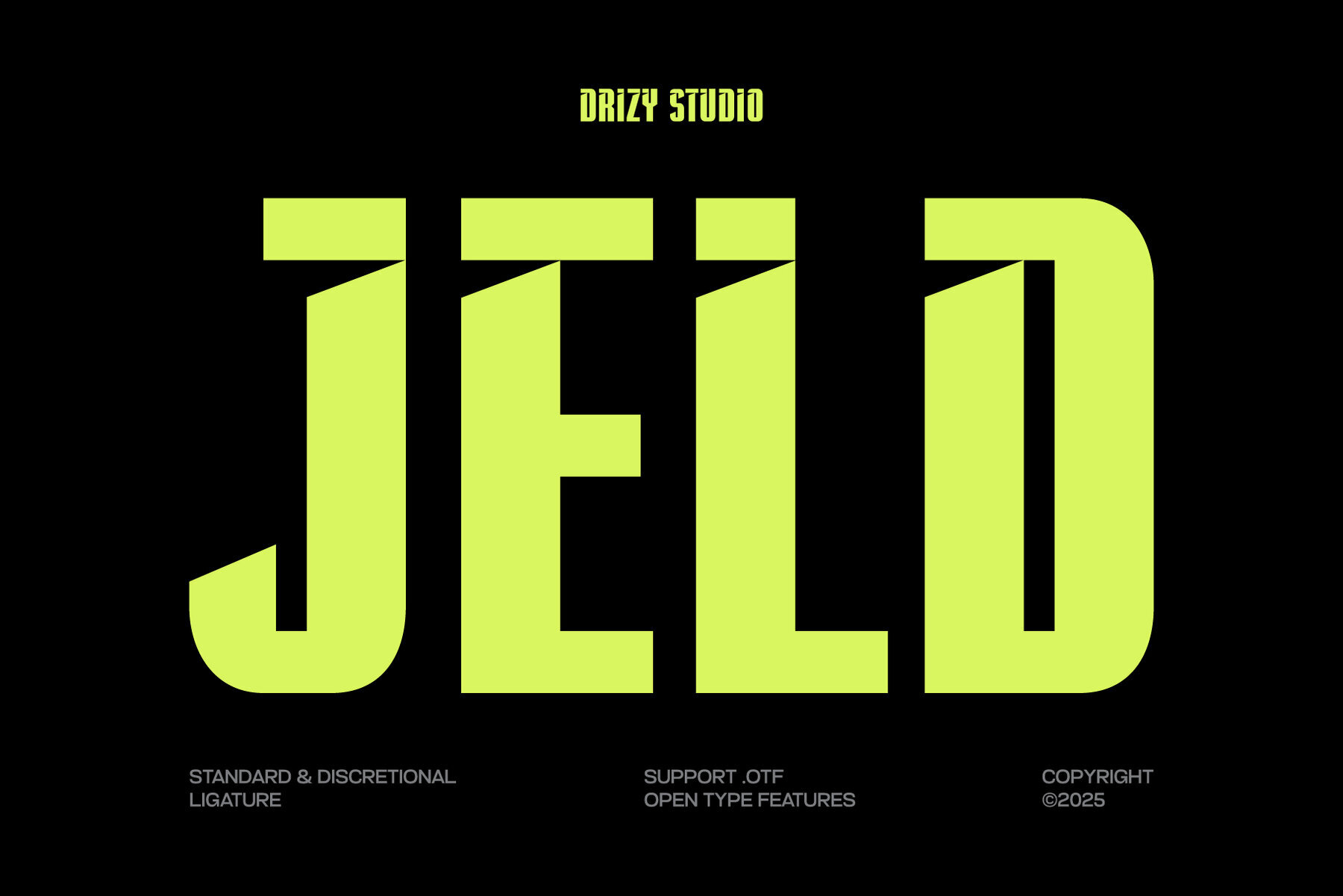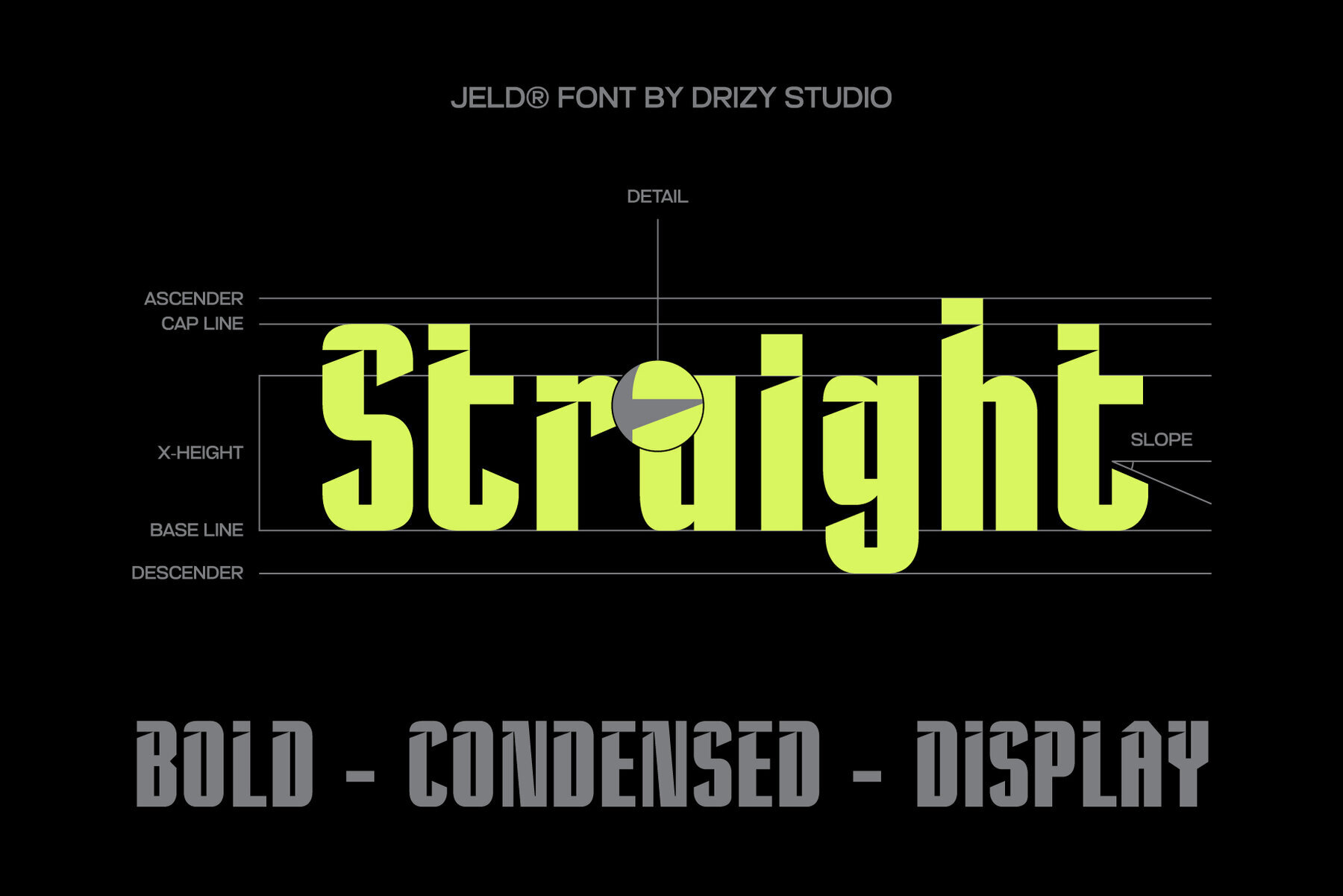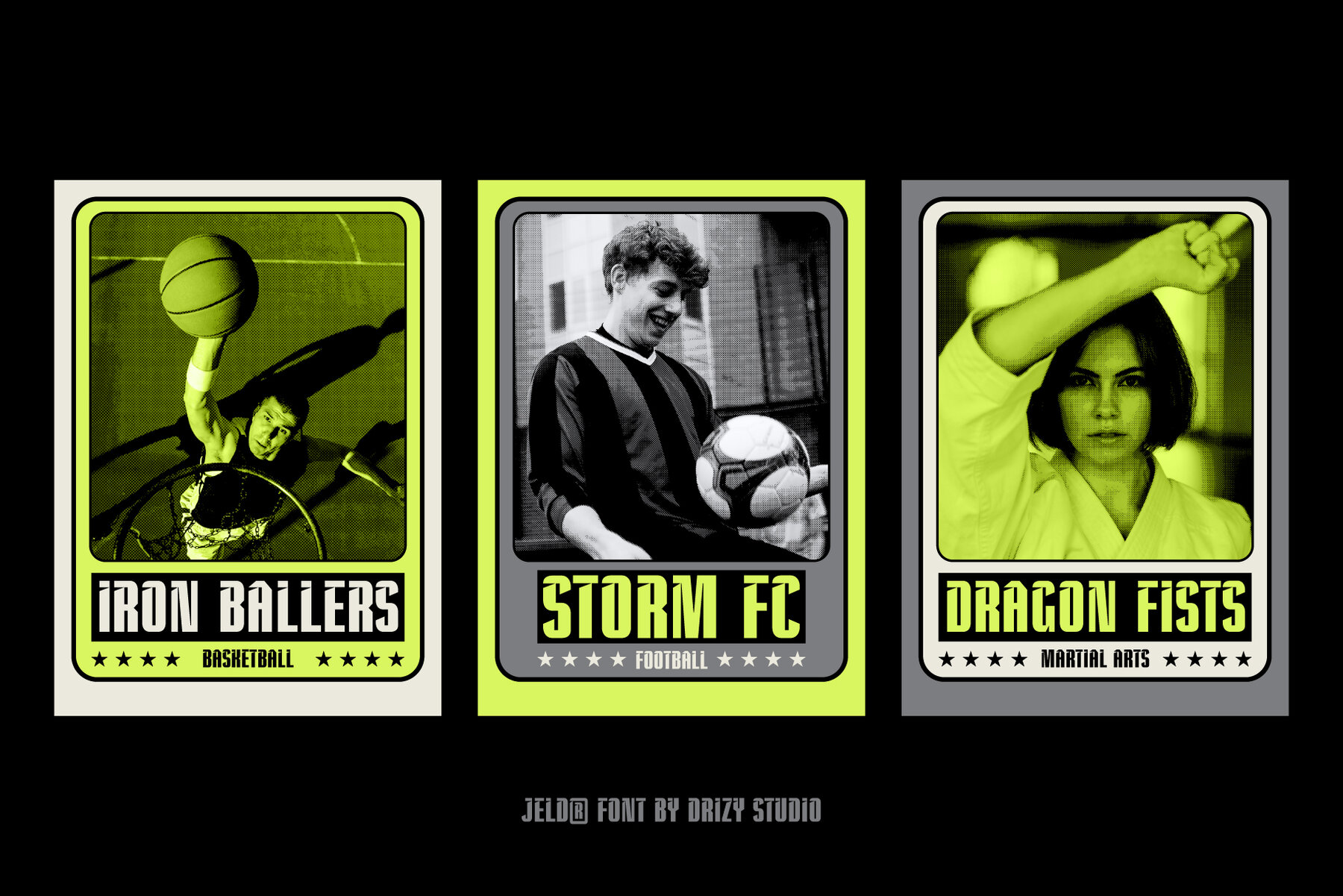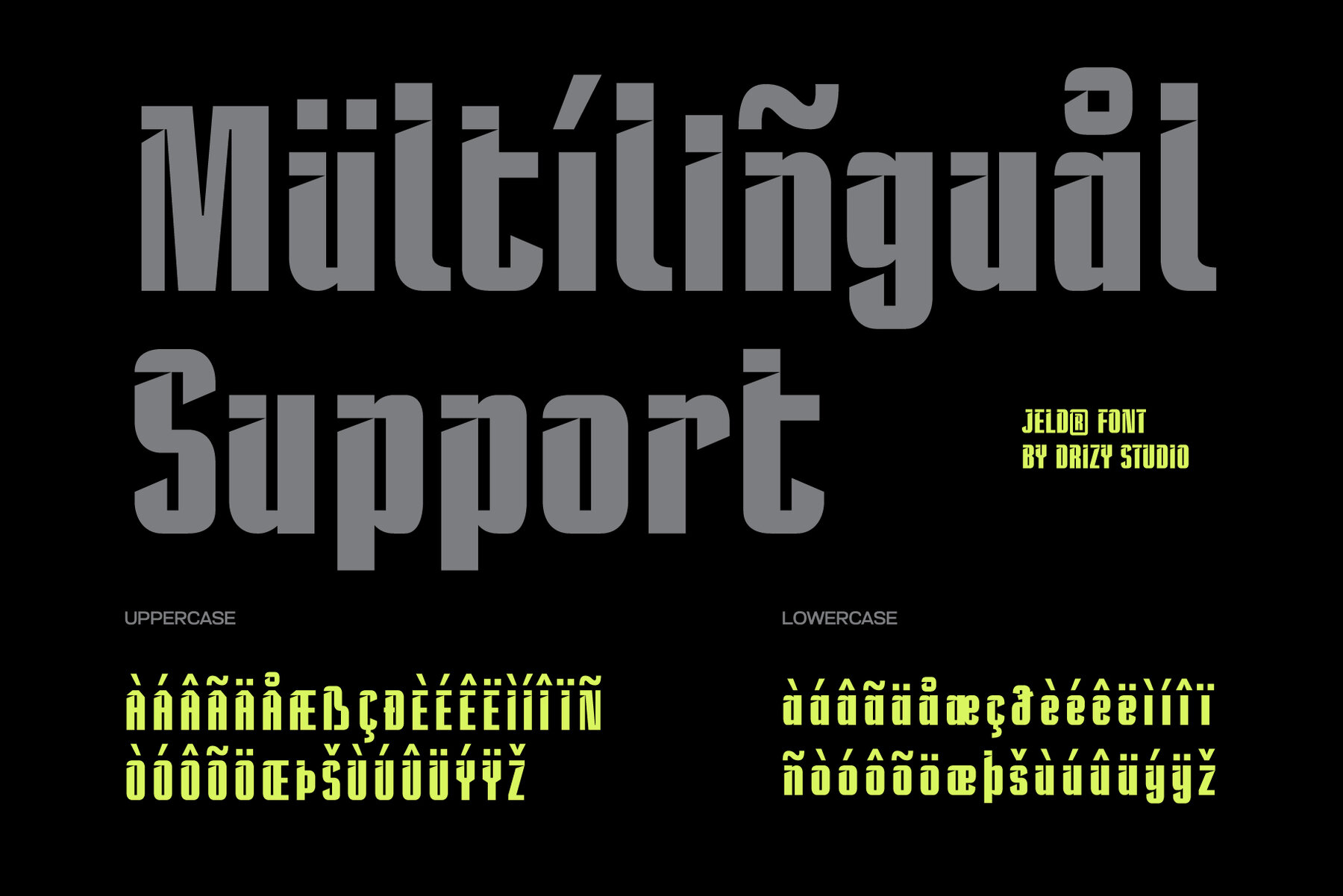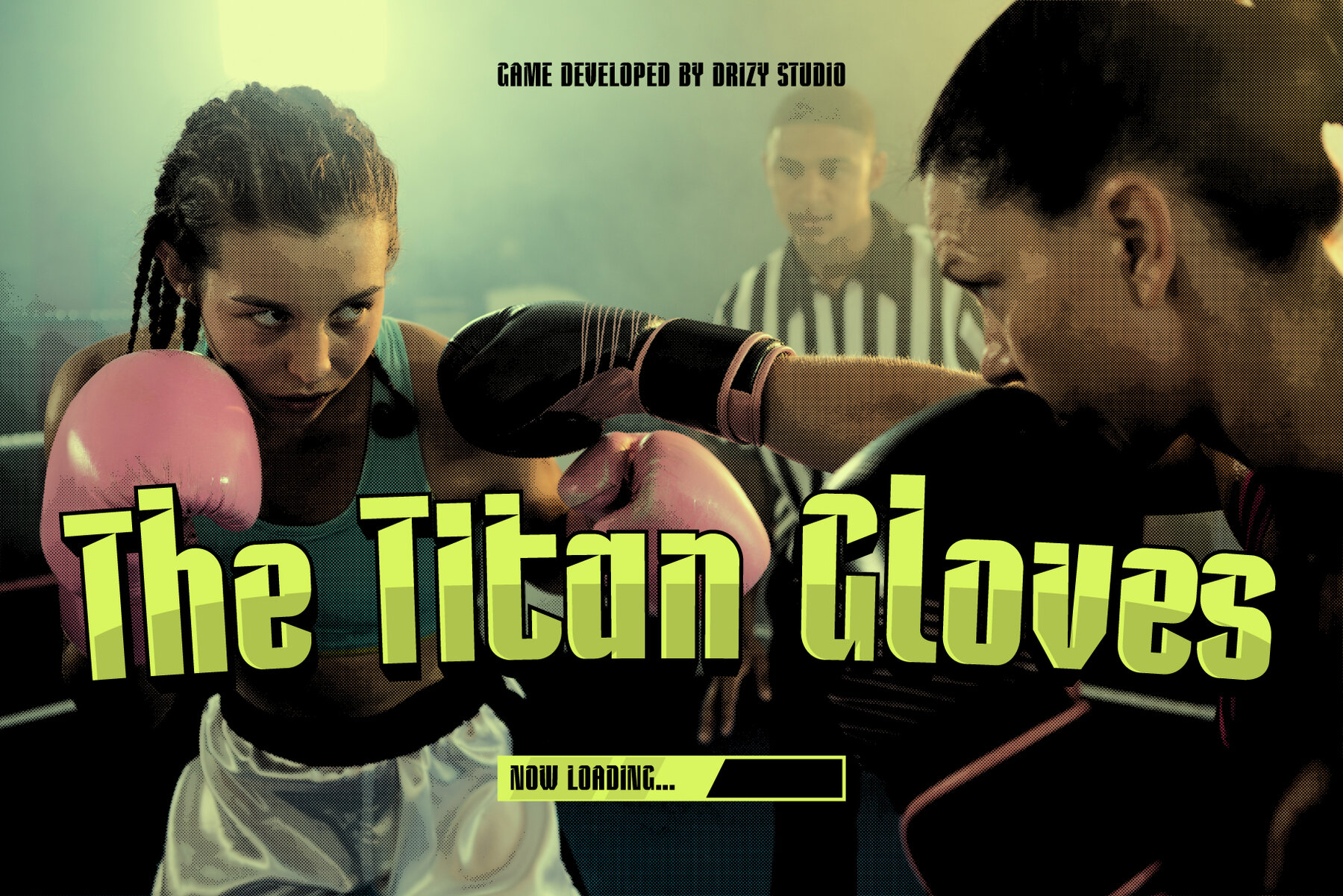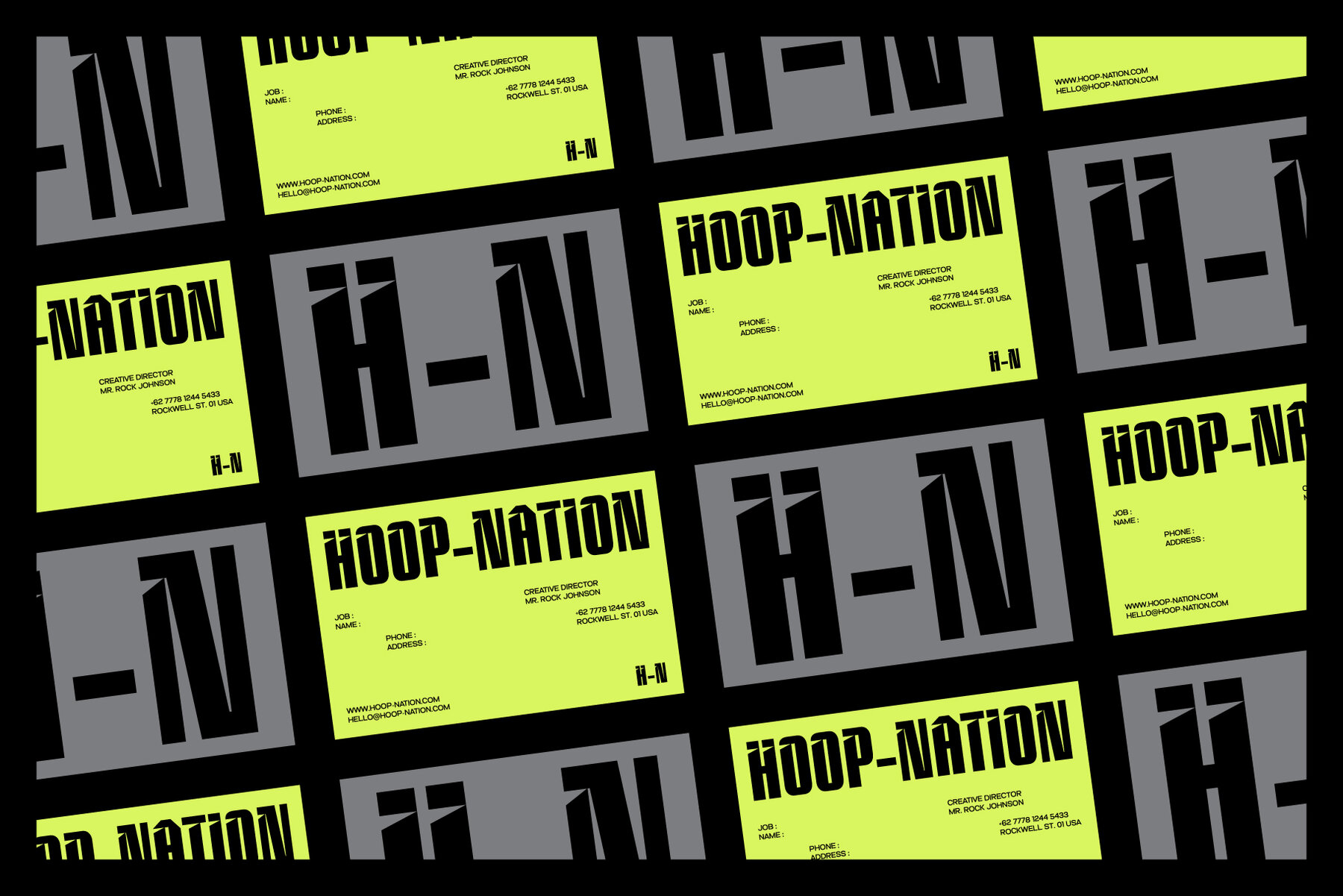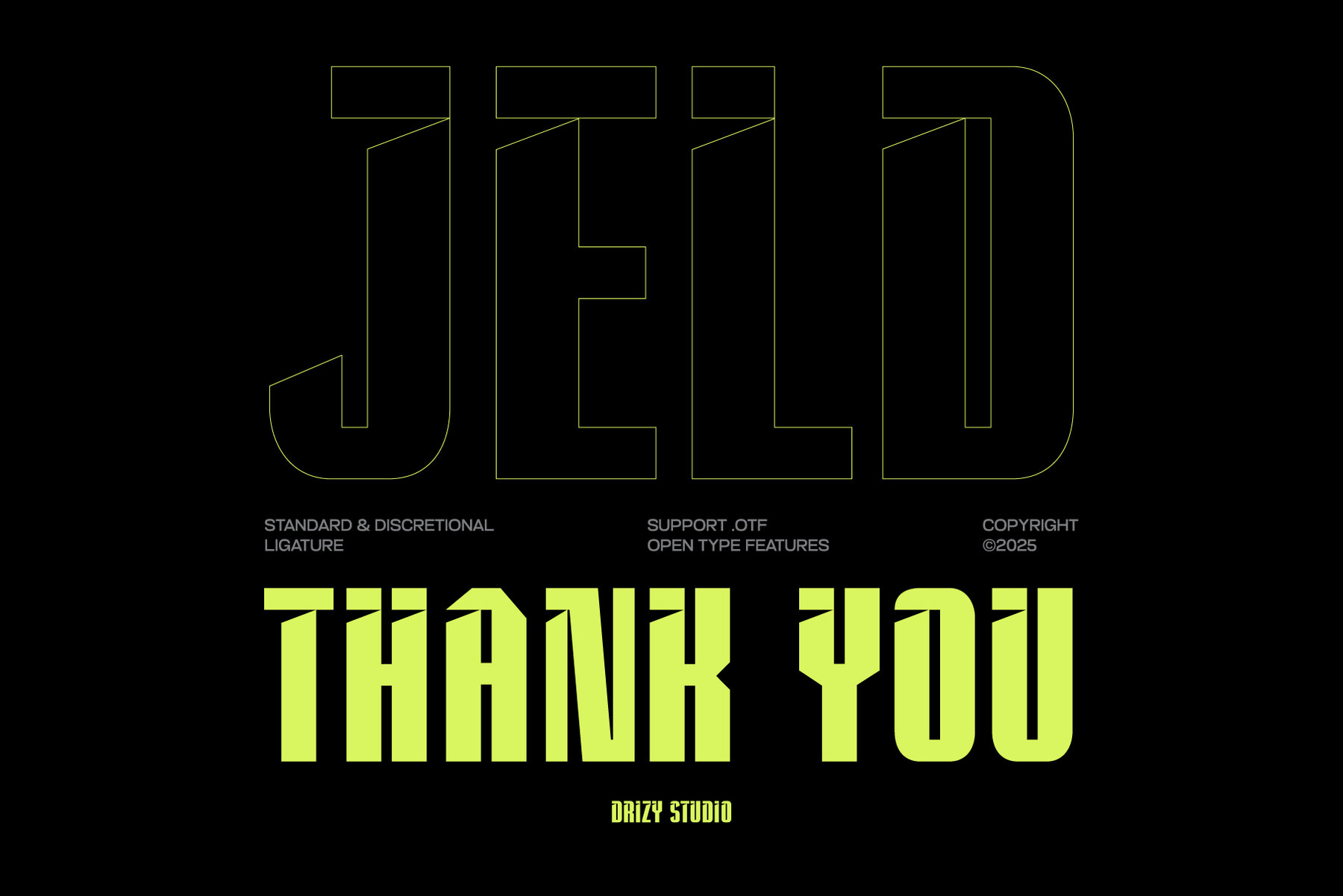
Jeld Font
Jeld Regular
Jeld by Drizy Studio is a modern condensed sport font, combining sleek design with a powerful aura. Characterized by clean lines and tight spacing, Jeld projects speed, strength, and precision, making it ideal for sports-related projects. Its sharp edges and strong letterforms ensure a striking impact while maintaining clarity, offering a professional look with a competitive flair.
This versatile typeface includes a full character set with uppercase and lowercase letters, punctuation, numbers, and supports multiple languages. Standard and discretionary ligatures further expand your design possibilities, allowing for creative, bold, and athletic projects. With its contemporary sans-serif style, Jeld is the perfect choice to instill a dynamic and strong presence in your designs.